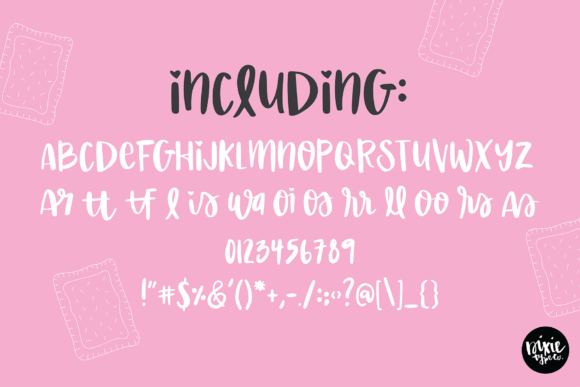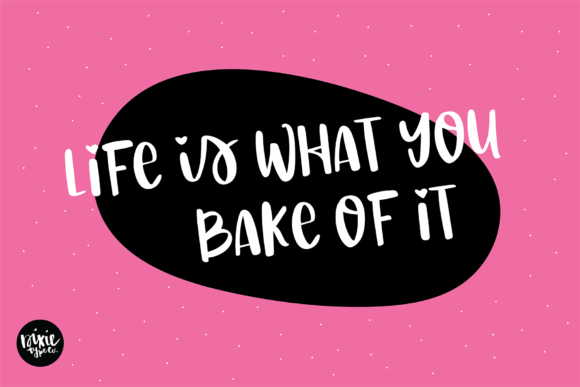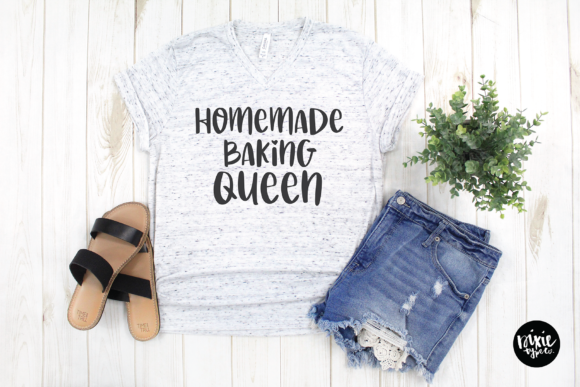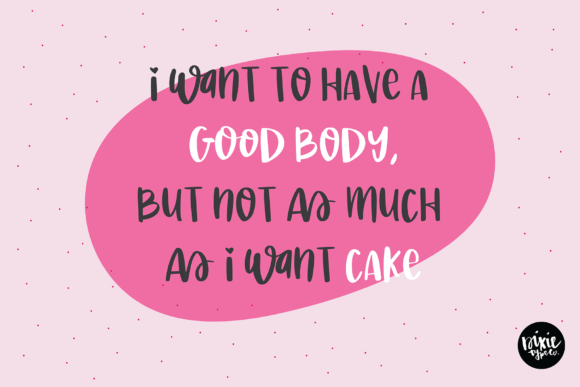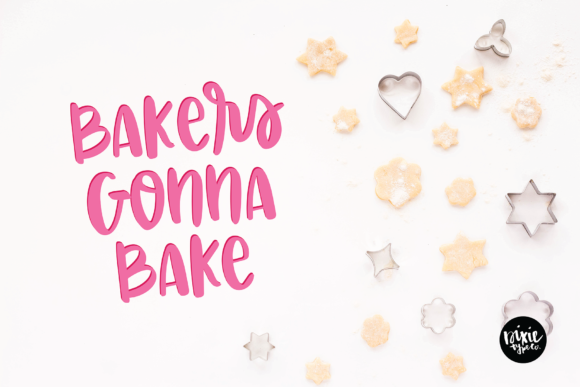
The Art of Expression: Unlocking the Beauty of Berry Pastry Font
Have you ever sat down with a cup of coffee, a blank page, and a pen, only to find yourself lost in the flow of creative expression? That’s where the magic happens – where the lines blur between reality and imagination, and the only thing that matters is the beauty that emerges from the page. For designers, that magic is often sparked by the perfect font, one that elevates their vision and brings it to life.
Enter Berry Pastry Font, a modern calligraphy script that has captured the hearts of designers worldwide. With its smooth lines, dancing baseline, and elegant touch, it’s the perfect addition to any project, from headings and logos to birthday invitations and posters. Whether you’re a seasoned pro or just starting out, Berry Pastry Font is a valuable tool that will help you take your designs to the next level.
With its versatility and charm, it’s no wonder that Berry Pastry Font has become a go-to choice for designers. From creating eye-catching headings to crafting beautiful letterheads, this font is sure to bring a touch of elegance and sophistication to any project.
Berry Pastry Font Key Features
- Font Family: Berry Pastry is a unique, handwritten font with a playful and whimsical feel.
- Font Size: Berry Pastry is available in 3 different font sizes: Regular, Bold, and Outline, allowing for versatility in design applications.
- Character Set: Includes a wide range of characters, including Latin, Cyrillic, and Greek alphabets, as well as punctuation and symbols.
- Unique Characteristics: Features a mix of cursive and printed letterforms, with subtle irregularities and flourishes that give the font a hand-drawn feel.
Berry Pastry Font Review
At first glance, Berry Pastry Font seems like a whimsical and playful addition to any design project. ✨ I appreciate how it captures the essence of a traditional bakery, with its charming, handwritten feel. The font is perfect for branding a small bakery, cafe, or any business that wants to convey a sense of warmth and approachability.
- ✨ The font’s unique, cursive design makes it stand out in digital and print media.
- ✨ Berry Pastry Font is highly legible, even in smaller font sizes, making it ideal for signage and labeling.
- ✨ The font comes in a variety of styles and weights, allowing designers to customize their project to suit their needs.
However, I do have a few concerns about Berry Pastry Font. ⚠️ While the font is generally well-suited for a bakery or cafe, it may not be the best choice for more formal or corporate projects. Additionally, some of the characters may not be perfectly rounded or symmetrical, which could be a minor issue for designers who prefer more precise typography.
Overall, I think Berry Pastry Font is a solid choice for designers who want to add a touch of whimsy to their projects. With its unique design and high level of customization, it’s definitely worth considering for the right project.
For best results, pair the Berry Pastry Font with a contrasting background color to make the text stand out.
Use the Berry Pastry Font for:
- Food-related designs, such as menus, recipe cards, or food labels.
- Children’s book illustrations or educational materials.
- Cake toppers or wedding invitations.